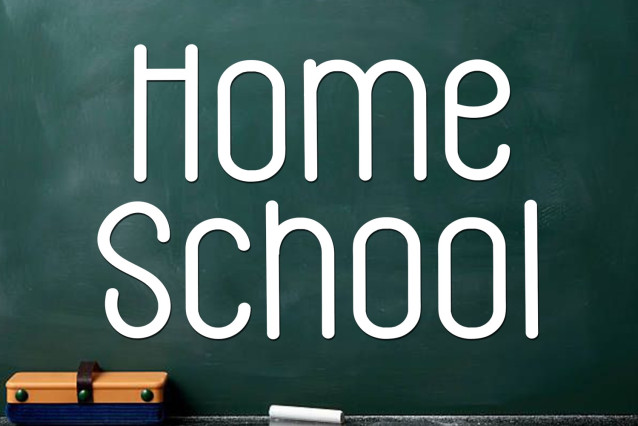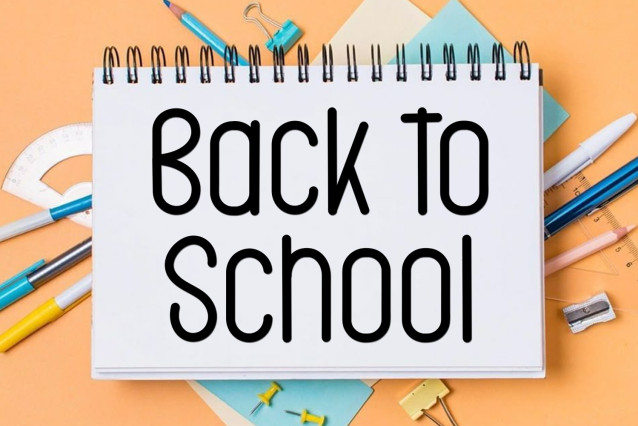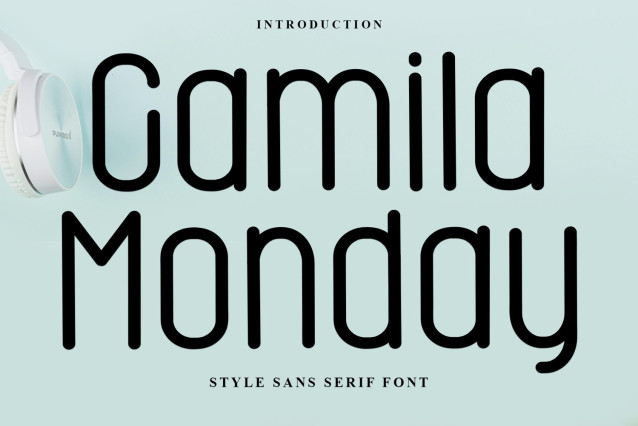
Camila Monday Font
Camila Monday Font is a beautiful and eye-catching font designed with a soft, unique touch. Its distinctive strokes give it a special character, making it meaningful and versatile for future use. With various characters, it’s perfect for design projects, crafts, and other creative works.